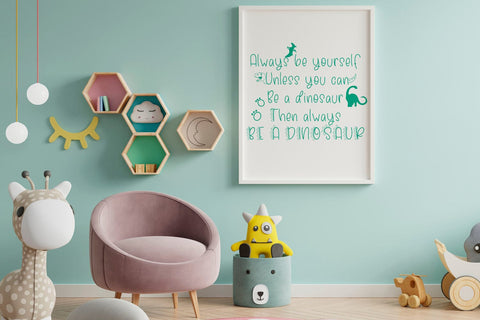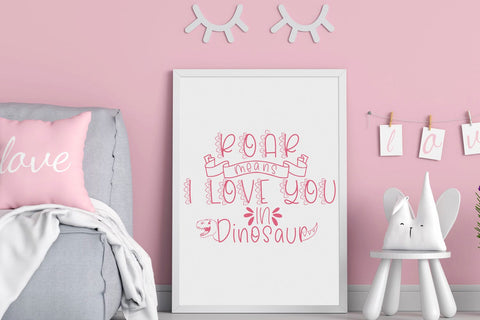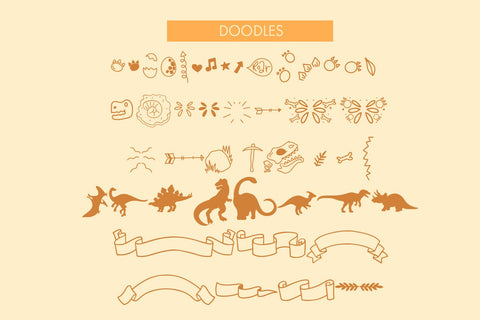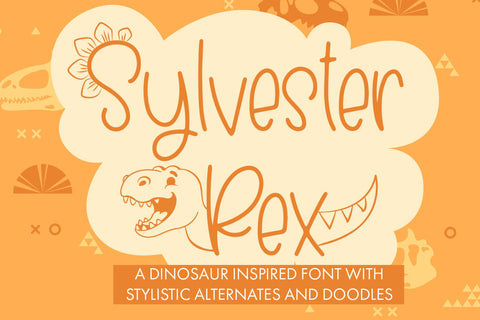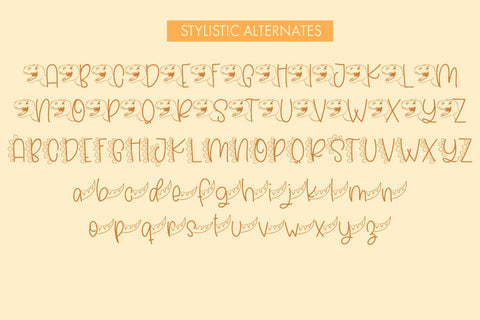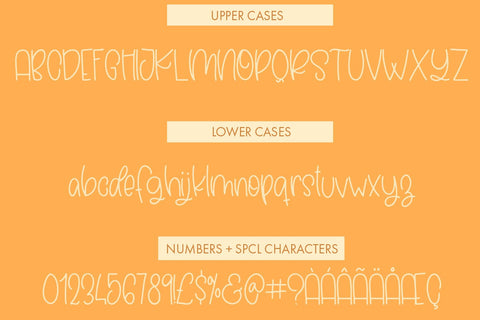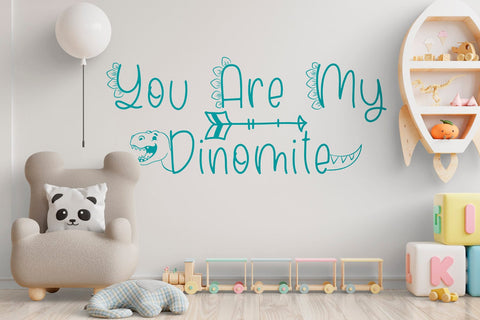
Sylvester Rex
Are you a fan of all things prehistoric? Then you'll love Sylvester Rex – the perfect font for adding a touch of dinosaur-themed fun to your designs! This playful typeface features hand-drawn letters with a unique dinosaur twist. And with three additional looks that include adorable dinosaur doodles, your designs will be truly one-of-a-kind.
But that's not all – Sylvester Rex also includes a bonus file with even more dinosaur-themed doodles, making it the perfect font for creating invitations, posters, or any project that needs a touch of prehistoric charm.